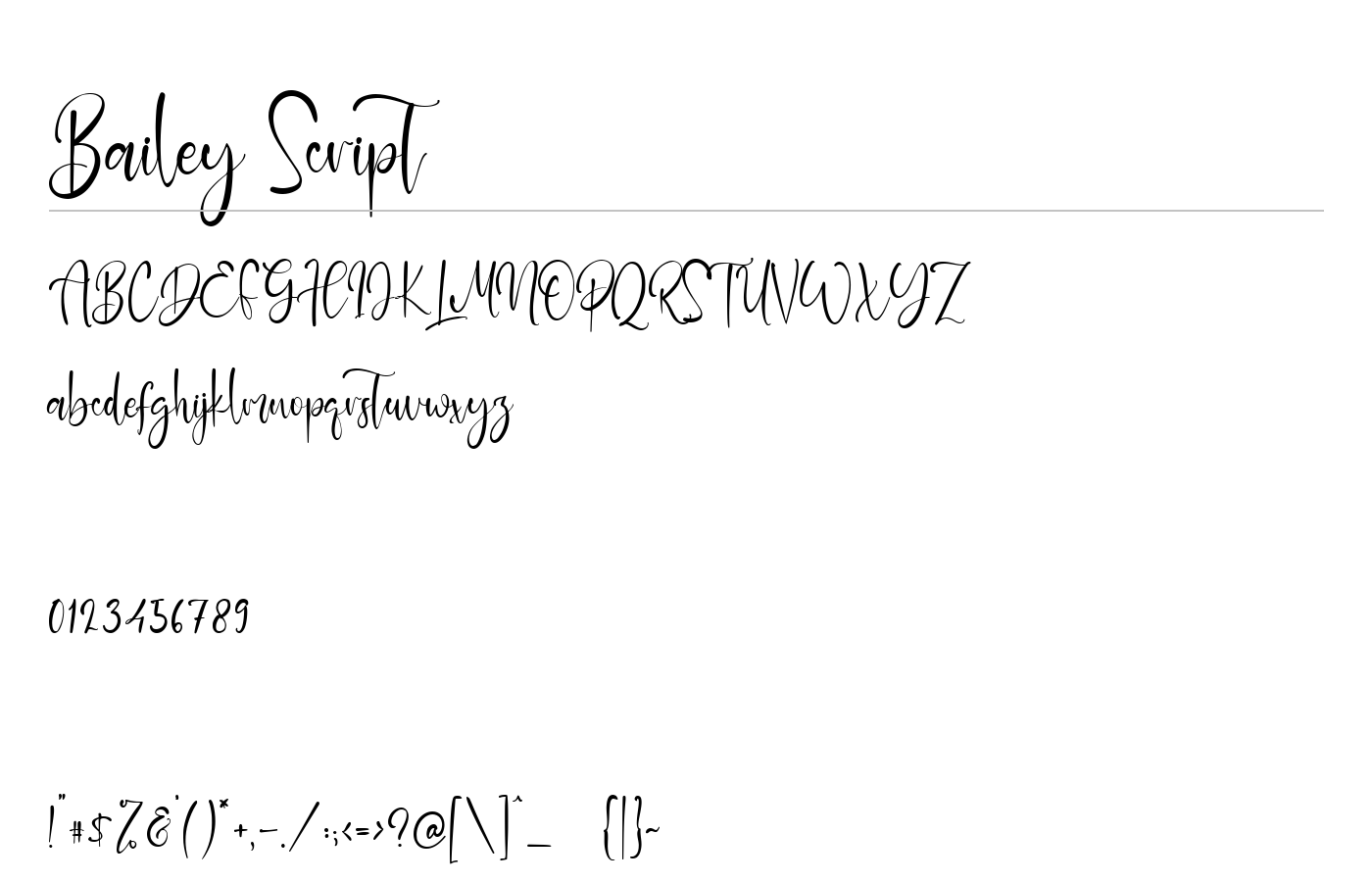
Bailey Script Font is a delicate and elegant script typeface featuring slender, flowing letterforms with a handwritten feel, combining both uppercase and lowercase letters that connect smoothly. Its thin strokes and graceful curves make it perfect for invitations, branding, and feminine design projects where a personal, stylish touch is desired. This font brings a blend of sophistication and warmth, ideal for fashion, beauty, and creative editorial use.
Bailey Script Font
About Bailey Script Font